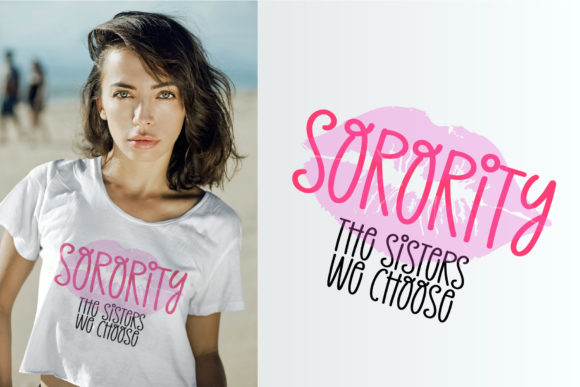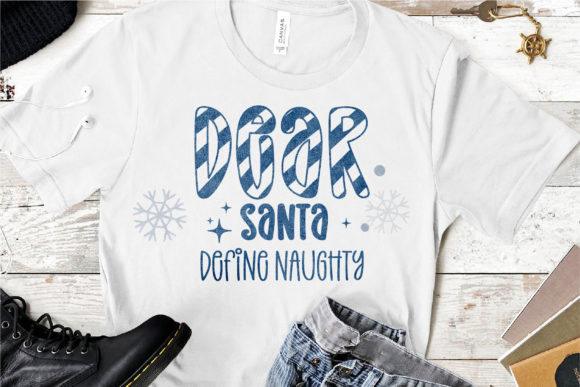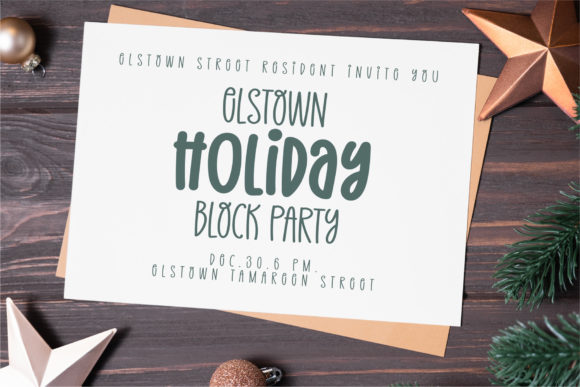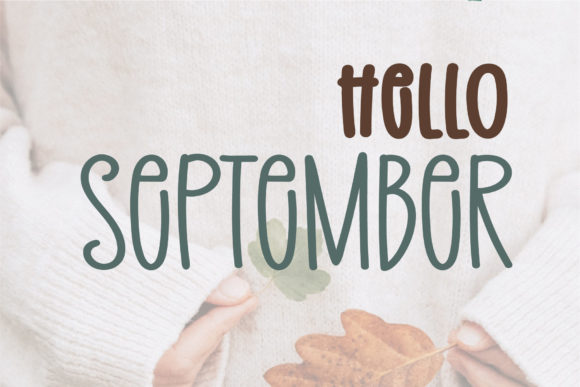
Christmas Candy Font
Christmas Candy is a cool, incredibly cute and fun display font. Add it to each of your party invitation, gathering or pretty much any design that requires a touch of youth and joy.